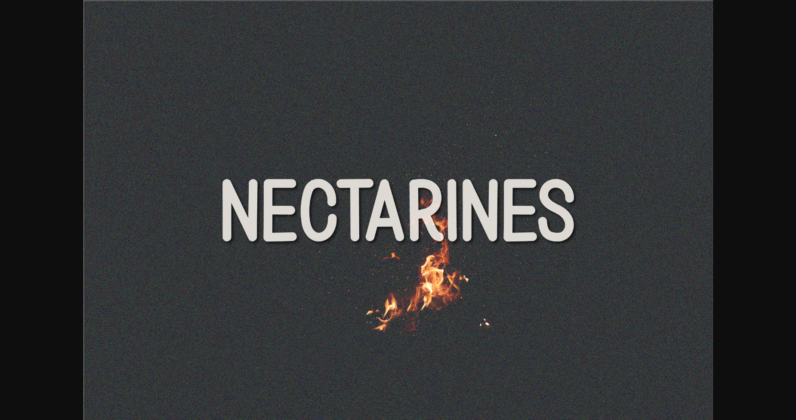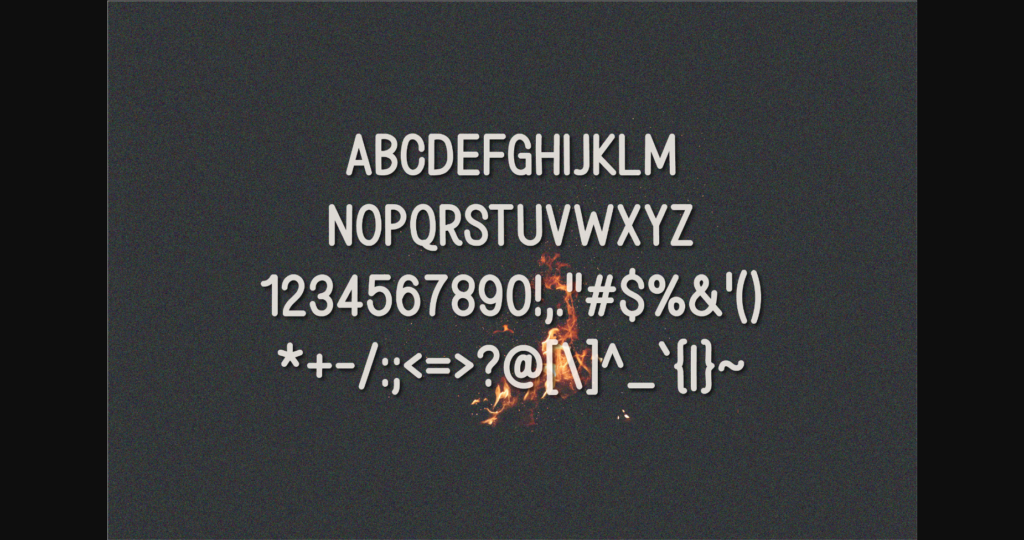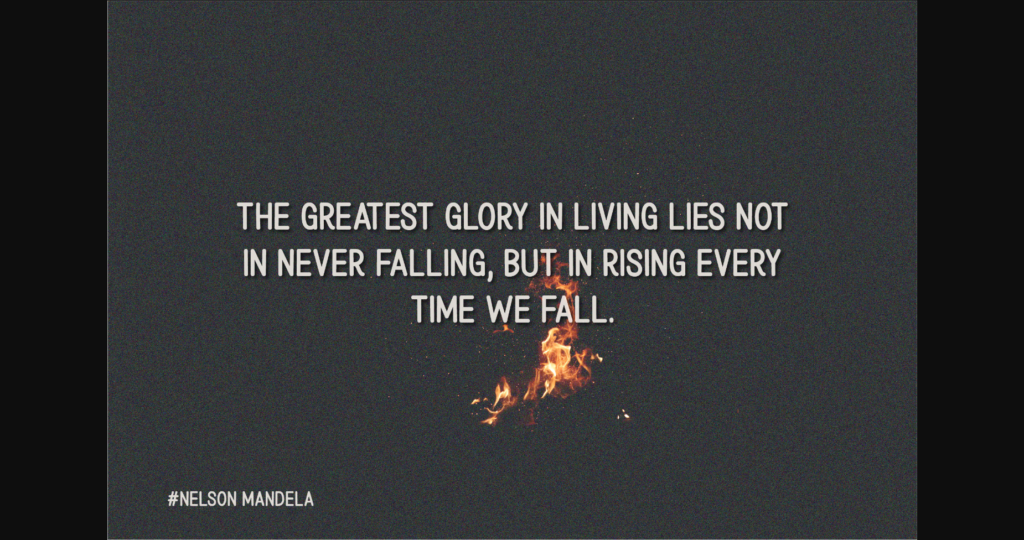
HomeSans Serif FontsNectarines Font Sans Serif Fonts Nectarines Font FacebookXPinterestWhatsApp 1 of 7 ... Nectarines Font Poster 2... Nectarines Font Poster 3... Nectarines Font Poster 4... Nectarines Font Poster 5... Nectarines Font Poster 6... Nectarines Font Poster 7... About Nectarines Font Nectarines is a quirky all-caps font made up of capital letters. This font is perfect for social media or crafty projects. Simple and smooth perfect for crafting, t-shirts, decals, cards, invitations and so much more. DOWNLOAD NOW People also explored Dellmonte Duo Font Songbird LF Font Stay Blink Font Sasa Font Pojah Font Manohara Font Aphelandra Font Tropical Country Font Charming Font 279 0 TagsNectarines Font Previous articlePearche FontNext articleBruschetta Font LEAVE A REPLY Cancel reply Comment: Please enter your comment! Name:* Please enter your name here Email:* You have entered an incorrect email address! Please enter your email address here Website: Save my name, email, and website in this browser for the next time I comment. Personal Use Free Hashira Mt Personal Use Free Read more about this font Geracella Personal Use Free Read more about this font Abingdon Personal Use Free Read more about this font Maharany Personal Use Free Read more about this font BLOG Free Fonts Risk: Why Free Fonts Can Be Dangerous for Designers Free Fonts Risk: Why Free Fonts Can Be Dangerous for Designers Using free fonts is a common practice in web and graphic design. However, the... Free vs Paid Fonts: Why Investing in Premium Fonts Is Worth It Best Fonts for YouTube Videos: Make Your Thumbnails Stand Out Fonts That Capture the Spirit of New York City